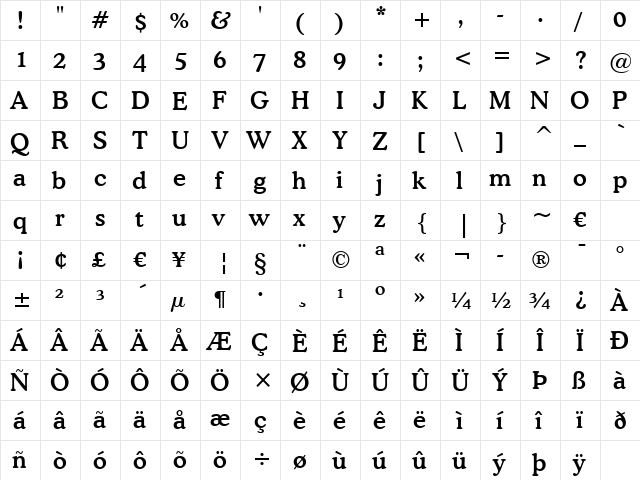
Cooper Md BT Medium
Design Context for Cooper Md BT Typeface
Cooper Md BT is a composed and adaptable typeface that performs quietly and consistently across a wide range of design contexts.